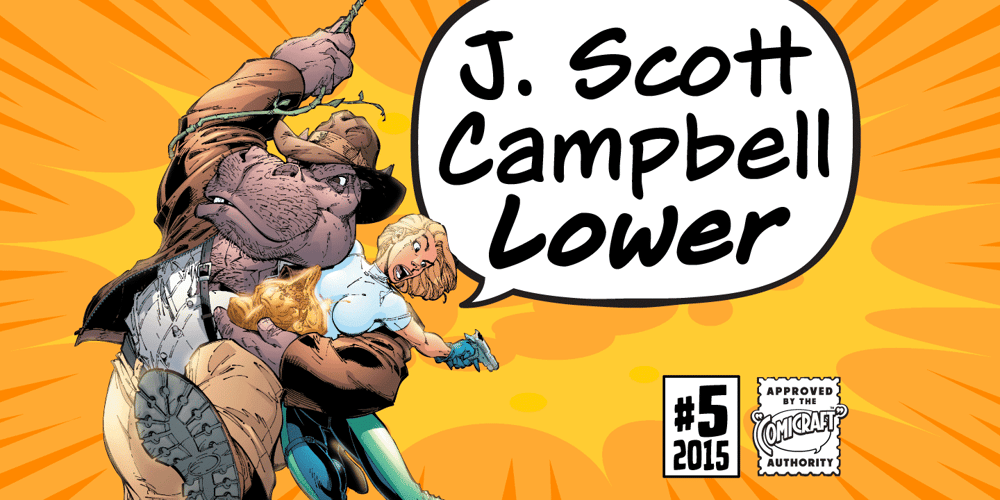
J. Scott Campbell Lower
J. Scott Campbell Lower font
J. Scott Campbell Lower Font Family was designed by John Roshell, J.Scott Campbell and published by Comicraft. J. Scott Campbell Lower contains 4 styles and family package options. Lower-case lettering is so-called because the characters that we know as lower-case were once kept in the bottom, shallow drawers of a type compositor’s typecase. Not a lot of people know that, and we suspect superstar artist and FAIRYTALE FANTASIES Calendar creator, J Scott Campbell doesn’t either because even though we looked high and low, in every single one of his drawers, we still could not find a single example of Scott EVER writing in lower case, but we begged him, we pleaded with him and, eventually we HYPNOTIZED him, and here’s the font you’ll find in J. SCOTT TIME CAPSULE from Image Comics! You’re welcome.